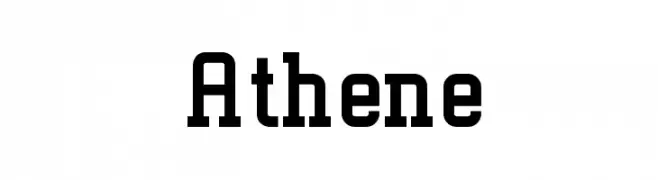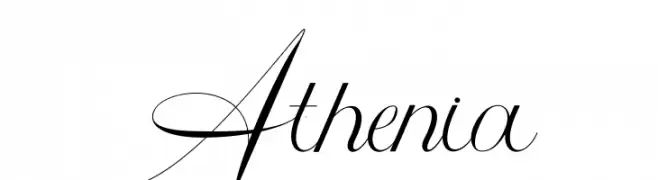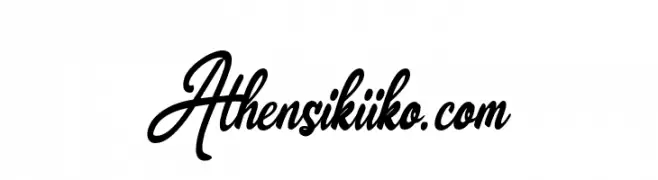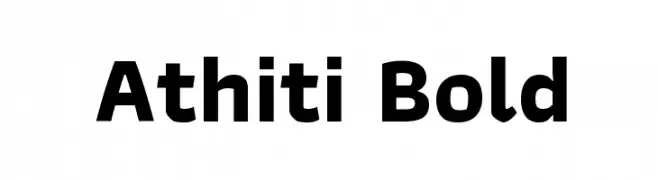
A fluid and elegant script font with a cohesive cursive style.
A bold, geometric slab serif font with a modern yet classic appeal.
An elegant script font with flowing, interconnected letters and ornate flourishes.
Elegant handwritten script font.
A fluid and expressive handwritten font with elongated strokes.
A bold, modern sans-serif font with clean lines and rounded edges.
A clean, modern typeface with uniform stroke width and rounded edges.